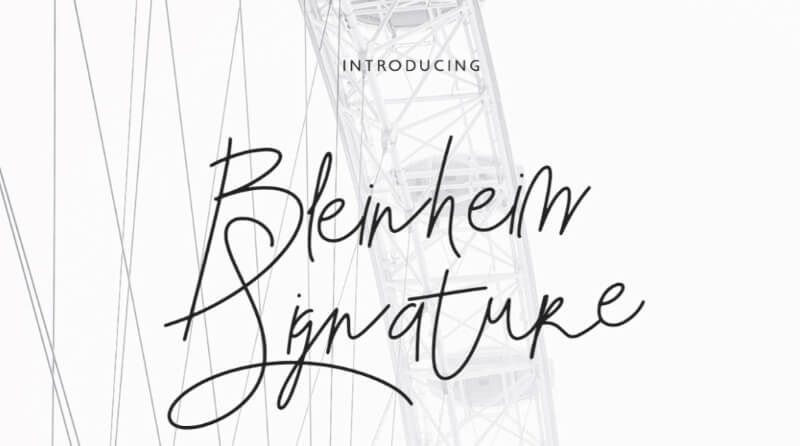
20 Best Modern Script Fonts for 2021
Script fonts give any design project a more humanistic or decorative look, so here are 20 awesome typefaces fit for fresh and modern designs.
Whether it’s your best friend’s handwriting, or a nonchalant brush stroke font popular with beach bars: script fonts definitely evoke certain feelings and attract attention.
As a rule, they have poorer legibility than serif, and especially sans serif fonts and often require a secondary typeface that’s more reader-friendly. Nonetheless, they can be a fantastic choice for certain small businesses and are a huge favorite with social media content creators.
So here are our top go-to script typefaces for 2021!
Monoline fonts
As the name suggests, monoline fonts are characterized by connected lettering: words are written in one continuous stroke. Naturally, these types of fonts are usually the ones that are most difficult to read, but they can make a wonderful display font (e.g. when people know what they’re supposed to be seeing, the legibility is not as much of an issue).
1. Rampage Monoline Script (free for personal use)
Speaking of monoline fonts that score high for legibility, this lovely stylistic alternative is certainly one to consider. It would look great on signage as well as social media posts, for a variety of industries, but particularly in barbershop branding.
2. Halimun ($25)
When I think of elegant monoline fonts, the first thing that comes to mind is wedding invitations and very romantic designs. But the font features of this one are minimalism and good readability thanks to the generous width of letters. So it would fit great even on cool grunge designs or music albums.
3. Bimbo (from $87)
This is actually a font pack including 7 typefaces that are all https://creativemarket.com/Zetafonts/2395799-Bimbo-7-fonts. From felltip to sharpie, the different font weights all have the same unique and personal feel (it really looks like someone’s handwriting). It’s not the most affordable font pack, but if you’re after personality, this purchase can really pay off!
4. Maumere (free for personal use)
This interesting monoline font with chunky script letters is practically ideal for captivating YouTube thumbnails as well as a display font on social posts. It’s free for personal use, and the commercial license is a bargain at just $5!
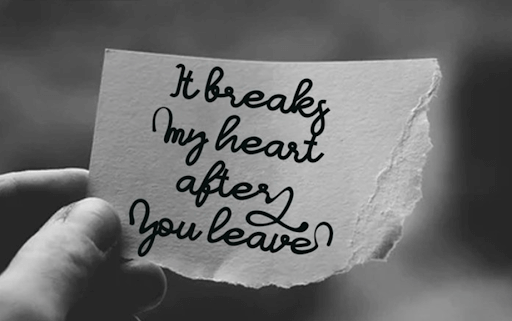
5. Rochestar Stylish Monoline (from $16)
If you want a cool, modern and elegant script that still offers high readability, then Hamstring is definitely a good one to consider. It’s got a natural feel and flow, making it quite versatile: it would work as a display, but also body text font for smaller portions of text (e.g. menus and business cards).
Modern calligraphy fonts
Calligraphy fonts are designed to mimic the old art of writing with a quill. However, there are some awesome stylistic alternatives to this traditional craft that are perfect for all sorts of digital design.
6. Ochre (free)
Here’s a gorgeous free font that couldn’t be more perfect for wedding invitations and perhaps wedding photographer websites. It has multilingual support which is great for a font as decorative and intricate as this one.
7. Angellya ($15)
Not all calligraphy fonts are business-friendly, but Angellya certainly isn’t one of them. With generous ligatures and round letters, this font is quite eye-catching and legible. It would certainly make a good fit for a beauty brand or even a professional massage therapy brochure.
8. Silagus (free)
This stunning free font has very dramatic ligatures so it would make a good beauty logo font. It also supports some multilingual characters so if you want a flowy and romantic wordmark for your business, this might be a wonderful budget-friendly option to consider.
9. Rabitta (free for personal use)
Although many calligraphy fonts mimic old ways of writing, that doesn’t mean that their modern alternatives can’t be very youthful and playful. Rabitta is a gorgeous free font with cute and quirky swashes. It makes a natural choice for wedding invitations, but I would also make a really good display font on different types of brochures and flyers.
Bulky brush fonts
I often associate brush script fonts with a surfer aesthetic, but the truth is that this style of script fonts also comes in all sorts of great alternatives. They’re heavier in weight than some of the delicate handwritten fonts on this list, so they usually look great on larger signage.
10. America (free)
This dramatic script font was inspired by Childish Gambino’s song of a similar name. It’s a font that would look great on grunge designs, but thanks to a natural flow it’s also quite versatile.
11. Arkipelago (free)
This free script font is described as “wet and inky” and indeed it conveys the nonchalant, imperfect feel quite well. Its slightly more traditional look would be a good choice for a pizza flyer or all sorts of menu design (it would pair well with display signs on the inside of your restaurant).